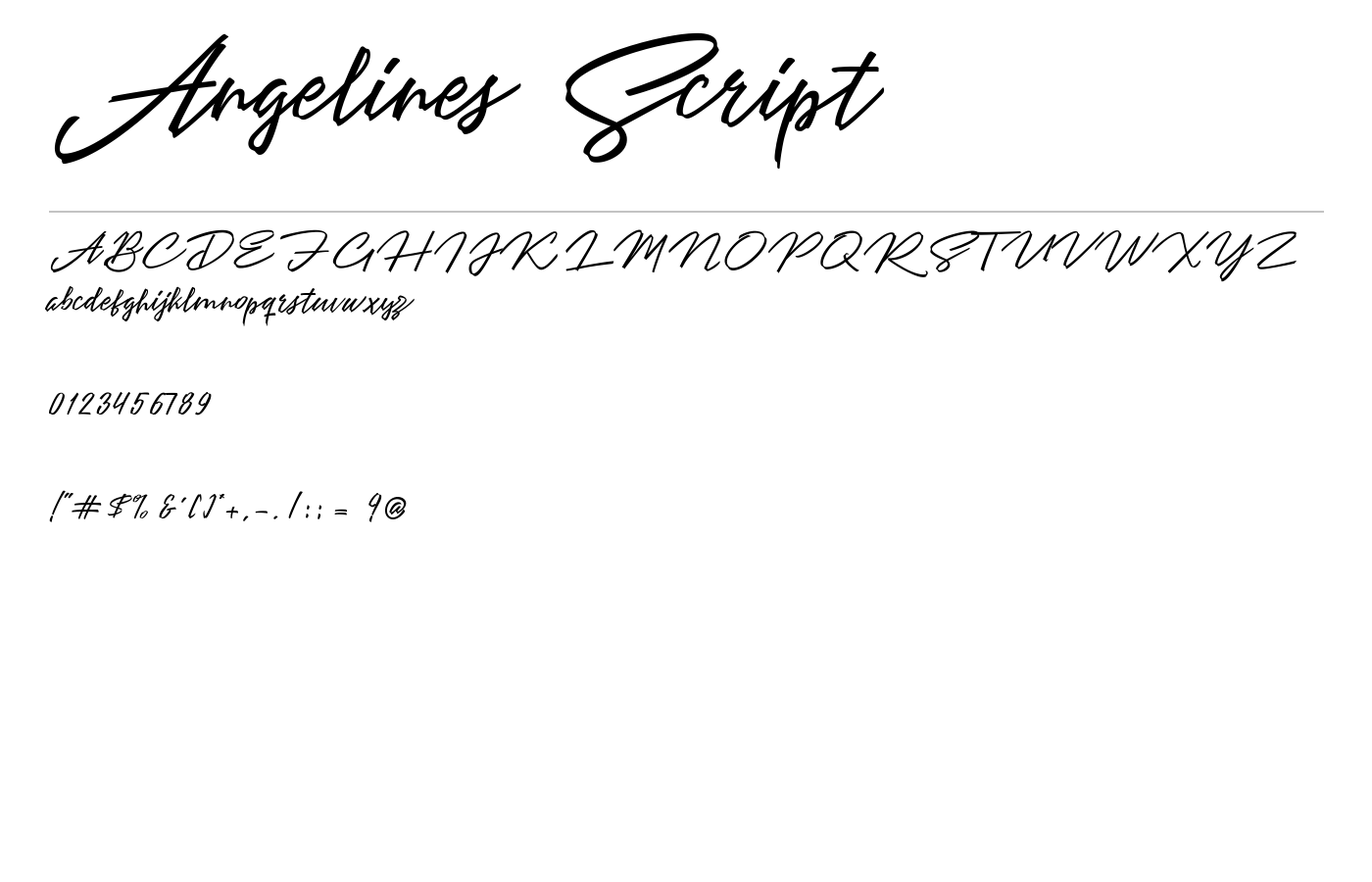
Angelines Script is a stylish and elegant handwritten font with a slender, flowing design that captures a natural calligraphic feel. Its light weight and delicate strokes make it ideal for feminine and sophisticated branding, invitations, or stylish editorial headlines. This font’s graceful curves and refined letterforms convey a personal and artistic touch, perfect for projects that seek a blend of modern elegance and approachable charm.
Angelines Script Font
About Angelines Script Font